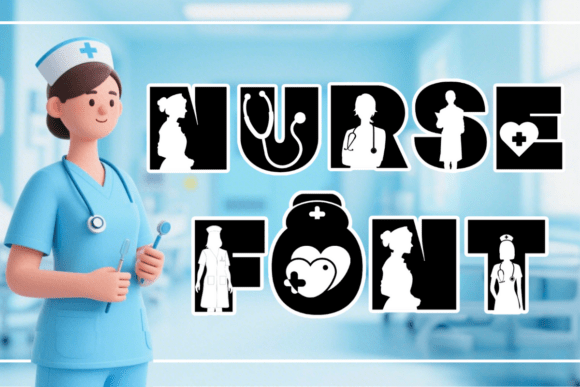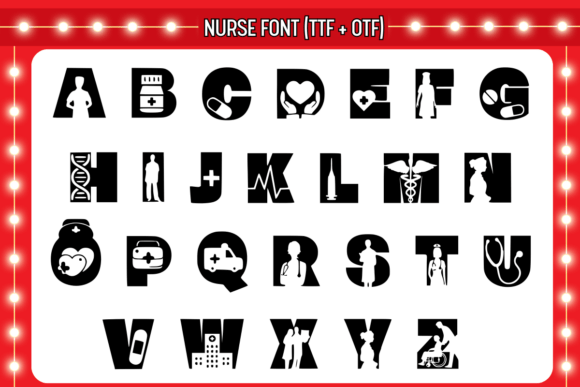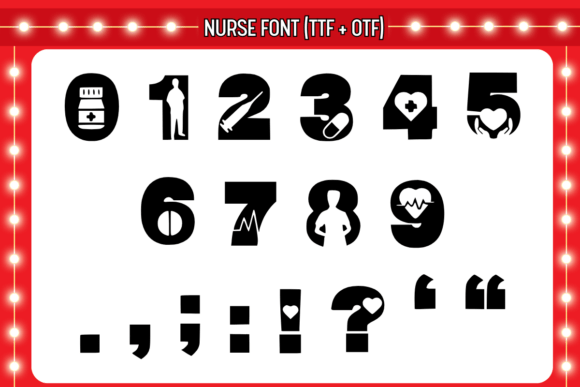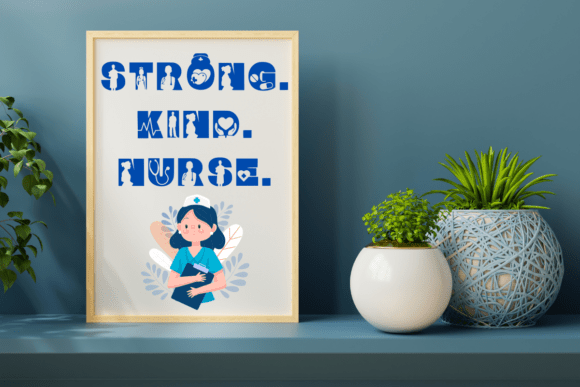
Nurse Font
About the Nurse Font
Introducing the Nurse Font, a beautifully crafted typeface designed to elevate your creative projects. Nurse Font features nurse silhouettes and healthcare icons embedded in every bold letter. It’s a heartfelt tribute to medical heroes—ideal for appreciation cards, hospital signage, nursing school materials, and health-related graphics.
Nurse Font’s strong, symbolic design makes it perfect for headlines, posters, and branding projects requiring a bold and instantly recognizable visual. Its unique character, however, limits its use in body text or UI elements where readability is paramount; the embedded icons could hinder legibility in smaller sizes or continuous reading.
The font’s inherent strength and positive energy pair well with softer sans-serif fonts like Lato or Open Sans for body copy, balancing its boldness with a clean, readable contrast. For a more formal feel, consider pairing it with a classic serif like Garamond or a geometric sans-serif such as Montserrat.
Its core personality is celebratory and affirmative, ideal for organizations or brands focused on healthcare, community support, or related initiatives aiming to express gratitude or promote a sense of trust and care.
Nurse Font Usage Examples
Nurse Font Example